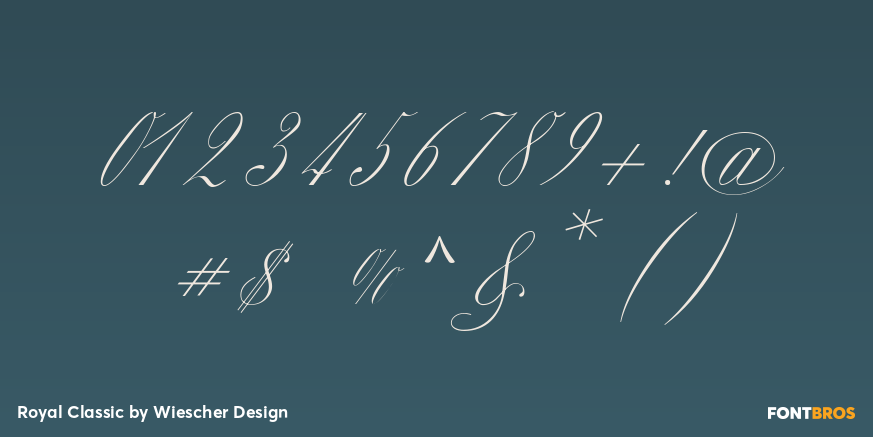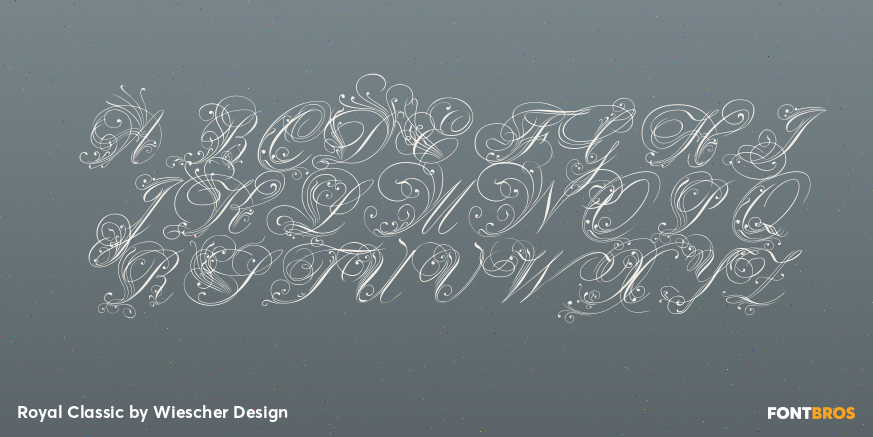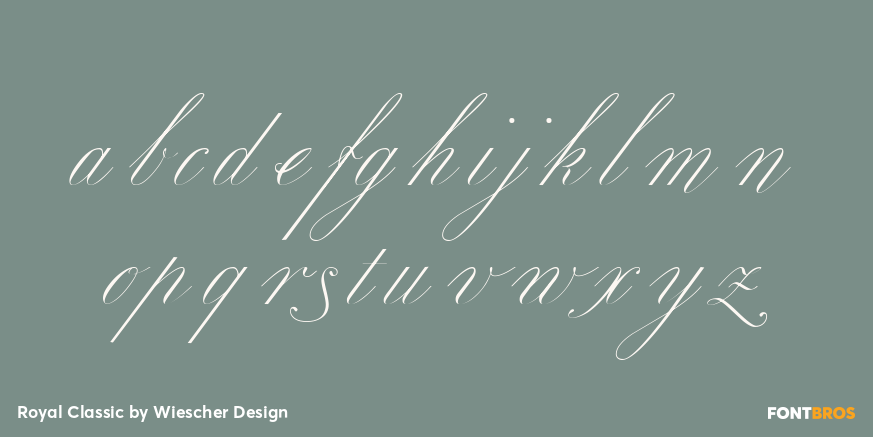
Royal Classic
Font Family by Wiescher Design
I bought a set of his chief scribes guidelines for writing and one of the scripts in the set is this elegant narrow classic script. I thought, I give it a decorated sister-script with elegant initials in the tradition of John Ayres.
I only sell the two together, because they should be mixed. Please do not use too many decorated initials!
I proudly present my new Royal Classic script.
Your very elegant Gert Wiescher.